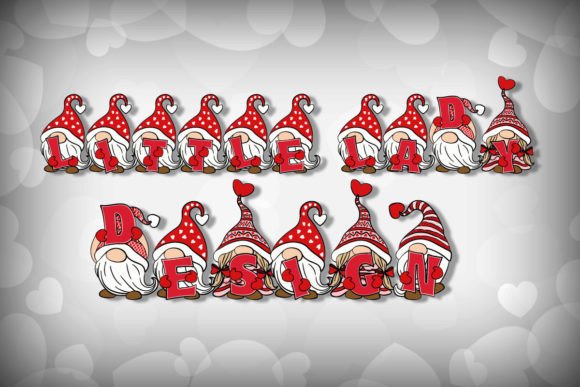
Gnome Valentine Font: The Ultimate Design Resource for Creative Projects
Are you a designer or crafter looking for a unique and eye-catching font to elevate your creative projects? Look no further than the Gnome Valentine Font! This stunning color font is highly detailed and versatile, making it a great resource for your font library. In this article, we’ll explore the features and benefits of Gnome Valentine Font and show you how it can help you create amazing designs.
What is Gnome Valentine Font?
Gnome Valentine Font is a carefully crafted color font that boasts intricate details and a distinctive style. Its unique design makes it stand out from other fonts, adding a touch of personality to any project. Whether you’re working on a wedding invitation, social media post, or product packaging, this font is sure to grab attention.
Key Features of Gnome Valentine Font
- Eye-catching design: Gnome Valentine Font is designed to turn heads. Its bold and colorful style makes it perfect for creating eye-catching designs that demand attention.
- Highly detailed: This font features intricate details that add depth and texture to your designs. Whether you’re creating a logo, invitation, or product label, Gnome Valentine Font will help you create a professional-looking design.
- Versatile: Gnome Valentine Font is suitable for a wide range of design projects, from wall displays and wedding invitations to social media posts and product packaging.
- Color font: Unlike traditional fonts, Gnome Valentine Font comes in a range of colors, allowing you to add an extra dimension to your designs.
Use Cases for Gnome Valentine Font
So, what can you create with Gnome Valentine Font? The possibilities are endless! Here are some ideas to get you started:
- Wall displays: Create stunning wall art with Gnome Valentine Font. Use it to create inspirational quotes, fun phrases, or even personalized messages.
- Wedding invitations: Make your wedding invitations stand out with Gnome Valentine Font. Its elegant and sophisticated design is perfect for formal events.
- Social media posts: Add a touch of personality to your social media posts with Gnome Valentine Font. Use it to create eye-catching graphics, promotions, or announcements.
- Product packaging: Take your product packaging to the next level with Gnome Valentine Font. Use it to create labels, stickers, or even custom packaging.
- Invitations and stationery: Create beautiful invitations, greeting cards, and stationery with Gnome Valentine Font. Its elegant design makes it perfect for formal and informal events.
Benefits of Using Gnome Valentine Font
So, why should you choose Gnome Valentine Font for your design projects? Here are just a few benefits:
- Unique designs: Gnome Valentine Font allows you to create unique and eye-catching designs that will set you apart from the competition.
- Time-saving: With Gnome Valentine Font, you can create professional-looking designs in no time. Its easy-to-use design makes it perfect for designers and crafters of all skill levels.
- Customization: Gnome Valentine Font is highly customizable, allowing you to adjust the color, size, and style to fit your design needs.
In conclusion, Gnome Valentine Font is a versatile and eye-catching color font that is perfect for designers and crafters. Its unique design, intricate details, and range of colors make it a great resource for your font library. Whether you’re working on a wedding invitation, social media post, or product packaging, Gnome Valentine Font is sure to help you create amazing designs. So why wait? Download Gnome Valentine Font today and take your designs to the next level!